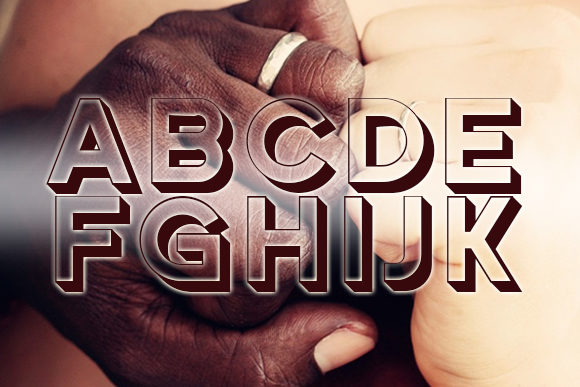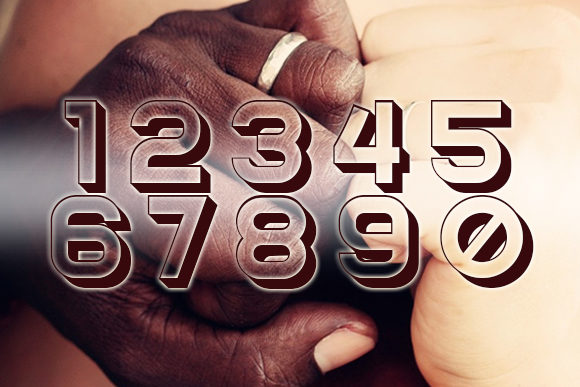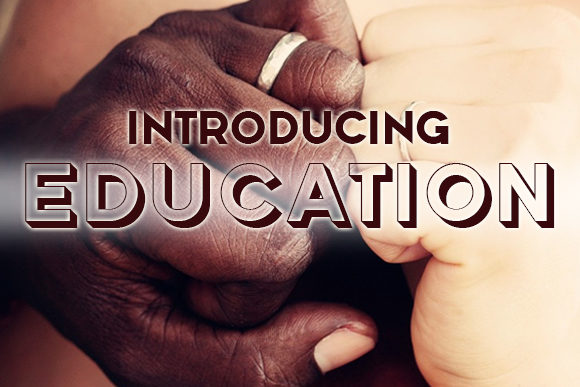
Unlock Endless Design Possibilities with Education Font
Are you a designer or crafter looking for a unique and versatile font to elevate your creative projects? Look no further than Education Font, a stunning 3D display font that’s perfect for making a statement. With its sleek design and endless variations, Education Font is sure to become a go-to choice for anyone looking to add a touch of sophistication and whimsy to their work.
What is Education Font?
Education Font is a one-of-a-kind, 3D display font that’s specifically designed to add a touch of elegance and fun to your designs. Its unique 3D effect gives it a distinctive look that’s sure to grab attention and leave a lasting impression. Whether you’re working on a project for a school, university, or educational institution, or simply want to add some visual interest to your craft projects, Education Font is the perfect choice.
Key Features of Education Font
• Unique 3D Effect: Education Font’s 3D effect gives it a distinctive look that’s sure to make your designs stand out.
• Endless Variations: With Education Font, you can experiment with different styles, colors, and textures to create unique and eye-catching designs.
• Perfect for Designs: Education Font is specifically designed for use in a variety of designs, including posters, flyers, brochures, and more.
How to Use Education Font in Your Designs
Using Education Font in your designs is easy and fun. Here are a few tips to get you started:
• Experiment with Different Styles: Try out different font styles, colors, and textures to create unique and eye-catching designs.
• Pair with Other Fonts: Education Font pairs well with a variety of other fonts, so feel free to experiment with different combinations.
• Use in Combination with Images: Education Font looks great when used in combination with images, so try incorporating it into your designs along with photos or illustrations.
Ideas for Using Education Font
Education Font is a versatile font that can be used in a variety of designs, including:
• School and University Projects: Education Font is perfect for projects related to education, such as posters, flyers, and brochures for schools and universities.
• Craft Projects: Education Font is also great for craft projects, such as handmade cards, scrapbooking, and DIY home decor.
• Marketing Materials: Education Font can be used in marketing materials, such as business cards, letterheads, and social media graphics.
Benefits of Using Education Font
There are many benefits to using Education Font in your designs, including:
• Unique and Eye-Catching Designs: Education Font’s 3D effect and endless variations make it easy to create unique and eye-catching designs.
• Increased Engagement: Education Font’s distinctive look is sure to grab attention and increase engagement with your designs.
• Professional-Looking Results: Education Font’s sleek design and versatility make it easy to achieve professional-looking results, even if you’re new to design.
Education Font is a powerful and versatile font that’s perfect for designers and crafters looking to add a touch of sophistication and whimsy to their work. With its unique 3D effect and endless variations, Education Font is sure to become a go-to choice for anyone looking to create eye-catching and engaging designs. So why wait? Download Education Font today and start exploring its endless possibilities!